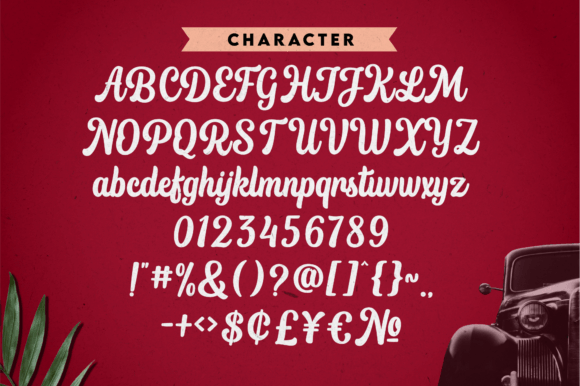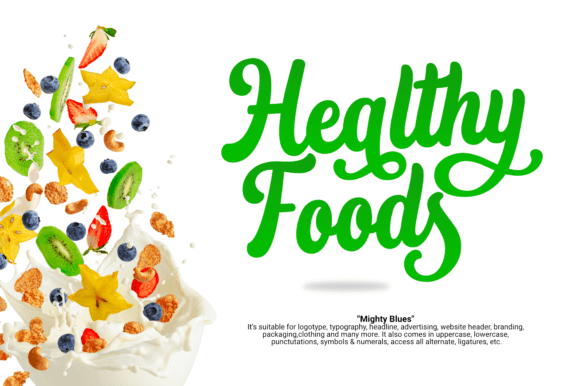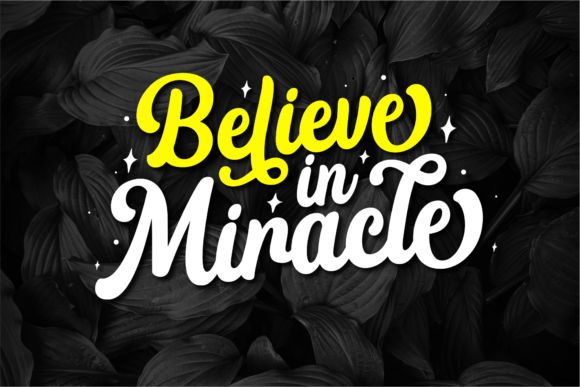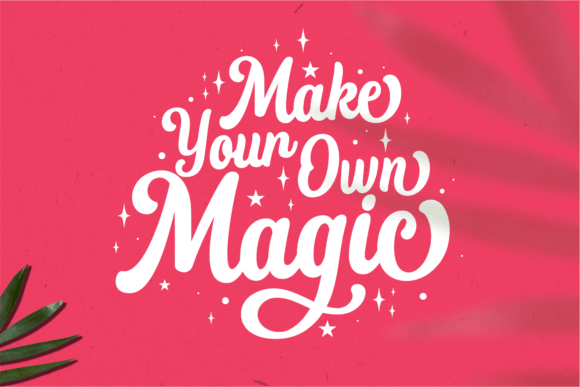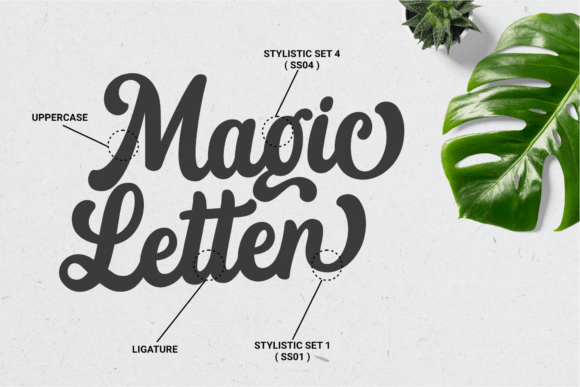
Introduction to Mighty Blues Font
As a designer, there’s nothing quite like the rush of creative inspiration that hits when you stumble upon the perfect font for your project. For me, it was a late-night design session, frantically searching for the perfect handwritten font to match the whimsical feel of a children’s book I was working on. And then, like a breath of fresh air, I discovered the Mighty Blues Font – a delicate, elegant, and flowing handwritten font that brought my design to life.
With its beautiful and well-balanced characters, the Mighty Blues Font is a design resource that can elevate any creative project, from wedding invitations to social media graphics. Its versatility and high-quality design make it a valuable addition to any designer’s toolkit, and with its PUA encoding, you can access all of the glyphs and swashes with ease.
Whether you’re working on a free download or a paid design project, the Mighty Blues Font is a must-have for any designer looking to add a touch of sophistication and elegance to their work. And with its transparent background, you can seamlessly integrate it into any design, making it a truly versatile and valuable design resource.
Key Features of Mighty Blues Font
- High-quality, vector-based design for a crisp and clear appearance in various sizes.
- Perfect for creative projects requiring a bold, eye-catching font, ideal for logos, headings, and titles.
- Designed with a unique, dynamic style that adds a touch of elegance and sophistication to any design.
Honest Review: Mighty Blues Font
I recently stumbled upon the Mighty Blues Font while searching for a design resource for my creative project. I was impressed with the high quality and versatility of this font.
Here’s what works well: ✨ The Mighty Blues Font has a unique, bold design that’s perfect for headlines and titles. The font is also highly customizable, allowing me to adjust the size, color, and spacing to suit my design needs.
Additionally, I appreciated the fact that the font has a transparent background, making it easy to layer over other design elements.
However, I did encounter some limitations: ⚠️ The font can be quite heavy, which may not be suitable for all design projects. Additionally, the font family is quite limited, with only a few styles available for download.
- Unique, bold design
Tips for Getting the Most Out of Mighty Blues Font
Use the Mighty Blues Font with a transparent background to create a cohesive and visually appealing design. Experiment with different font sizes and colors to add depth and emphasis to your text. You can also pair the font with other high-quality fonts to create a unique and eye-catching design.
The Mighty Blues Font is ideal for use in branding materials, marketing materials, and creative projects that require a touch of sophistication and elegance. Use the font to create eye-catching headings, titles, and subtitles that will grab the attention of your audience.